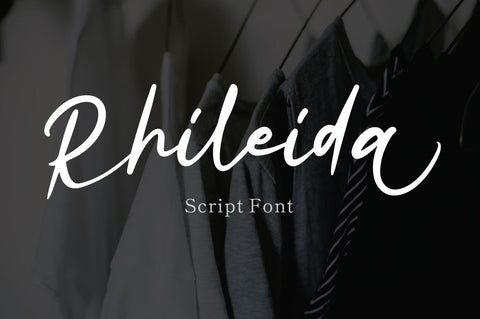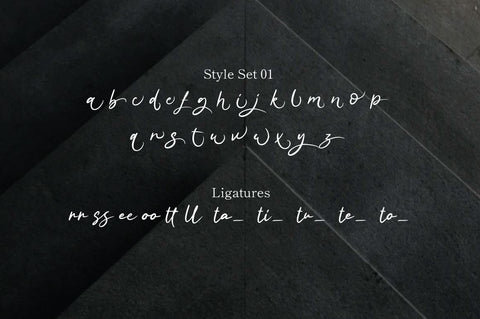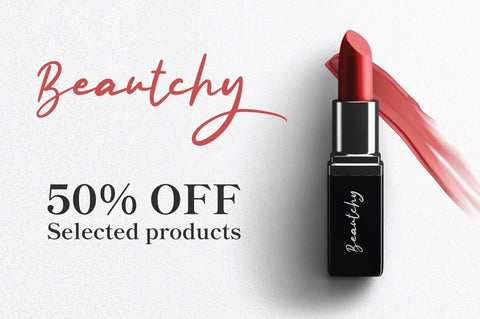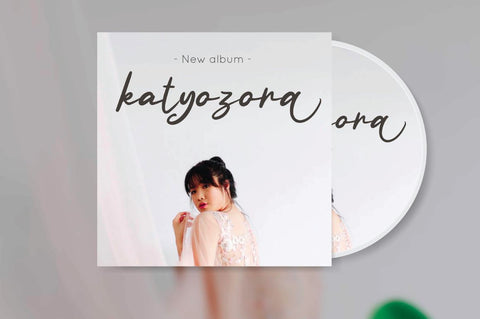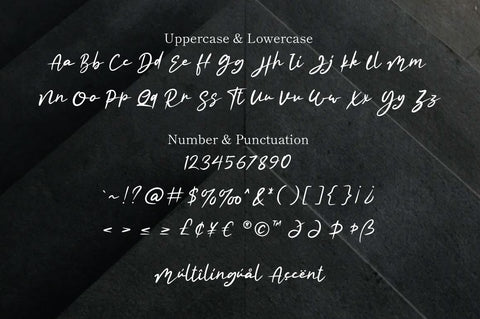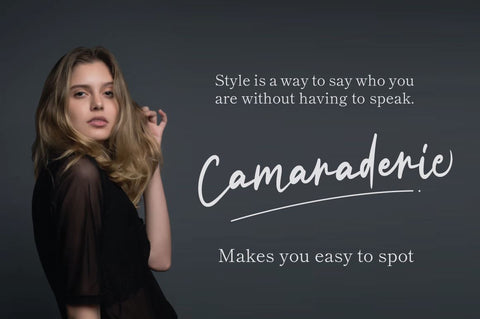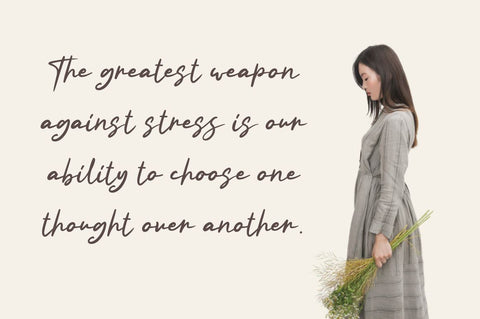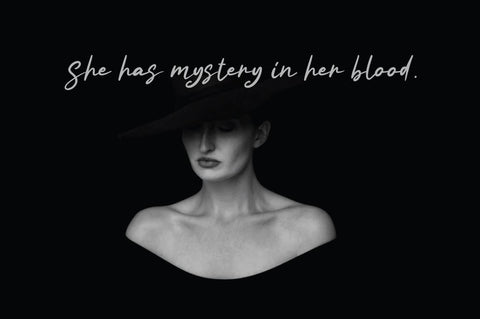
Rhileida - Script Font
Rhileida is a beauty script font with ending swash. Fall in love with its incredibly versatile style and use it to create spectacular designs!
Rhileida is perfect for branding, logo, invitation, stationery, social media post, product packaging, merchandise,
blog design, game titles, cute style design, Book/Cover Title and more.
- Ending Swash